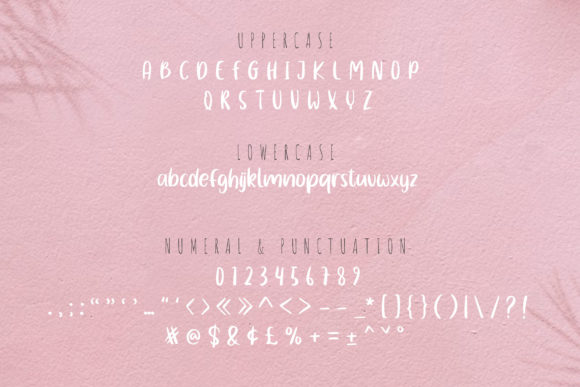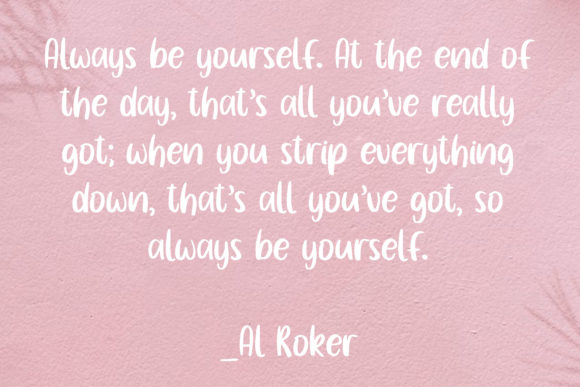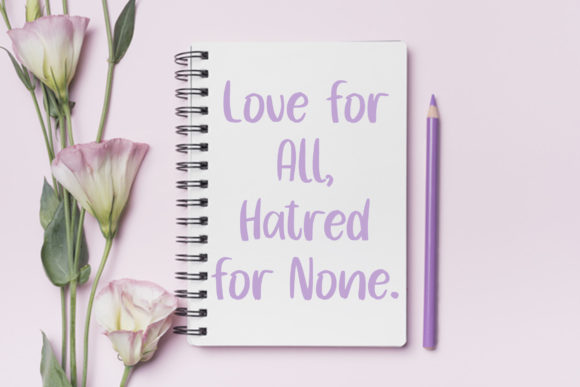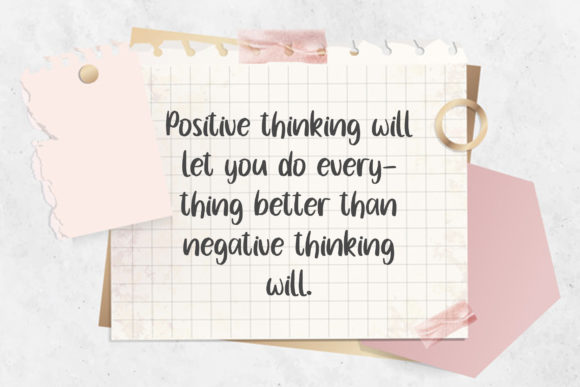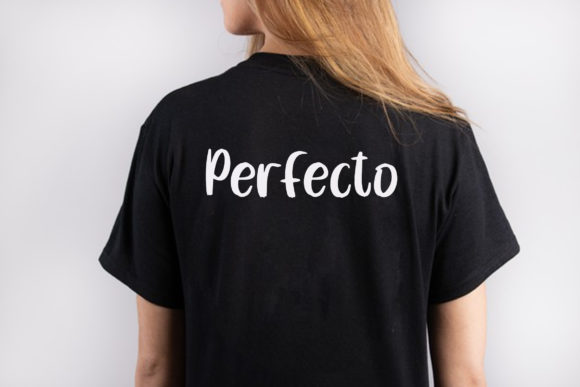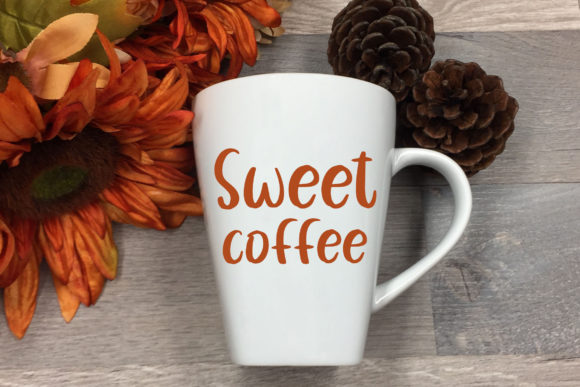
Introduction to Perfecto Font
Have you ever found yourself in the middle of a creative project, scrolling through your font library, and suddenly, the perfect inspiration hits? That’s exactly what happened to us when we stumbled upon the Perfecto Font. Its cool, friendly, and brushed handwritten style instantly captured our attention, and we knew we had to share it with the world.
Perfecto Font: Key Features
- High-quality, professional font suitable for creative projects and designs
- Perfect for use in logos, headings, and body text in various design projects, including digital and print media
Honest Review: Perfecto Font
What works well with this font is its versatility. The transparent background allows for seamless integration with any design, making it a valuable resource for designers like myself. The font’s clean and modern design is perfect for a variety of creative projects, from logos to typography-based designs.
Here are some of the font’s key features:
- Perfect for logos, typography, and creative projects
While the Perfecto Font is a great resource, there are some limitations to consider ⚠️. The font may not be suitable for all projects, particularly those that require a more formal or traditional tone. Additionally, the font’s size and style may not be as extensive as some other popular fonts on the market.
Overall, I’m impressed with the Perfecto Font and would recommend it to designers looking for a high-quality, creative resource. With its clean design and transparent background, it’s a great addition to any design toolbox ✨.
Tips for Getting the Most Out of Perfecto Font
Experiment with different font sizes and styles to find the perfect combination for your design. Use the font in conjunction with other design elements, such as images and graphics, to create a visually appealing design.
Common Use Cases for Perfecto Font
The Perfecto Font is ideal for a wide range of creative projects, including logos, graphics, and presentations. Its unique design and high quality make it a great choice for designers who want to add a touch of elegance and sophistication to their work.
What is the recommended font size for optimal readability of the Perfecto Font?
The recommended font size for optimal readability of the Perfecto Font varies depending on the intended use and display medium. As a general guideline, a minimum font size of 12 points is recommended for body text, while larger font sizes can be used for headings and titles. However, it’s essential to experiment with different font sizes to find the optimal balance for your specific design project.